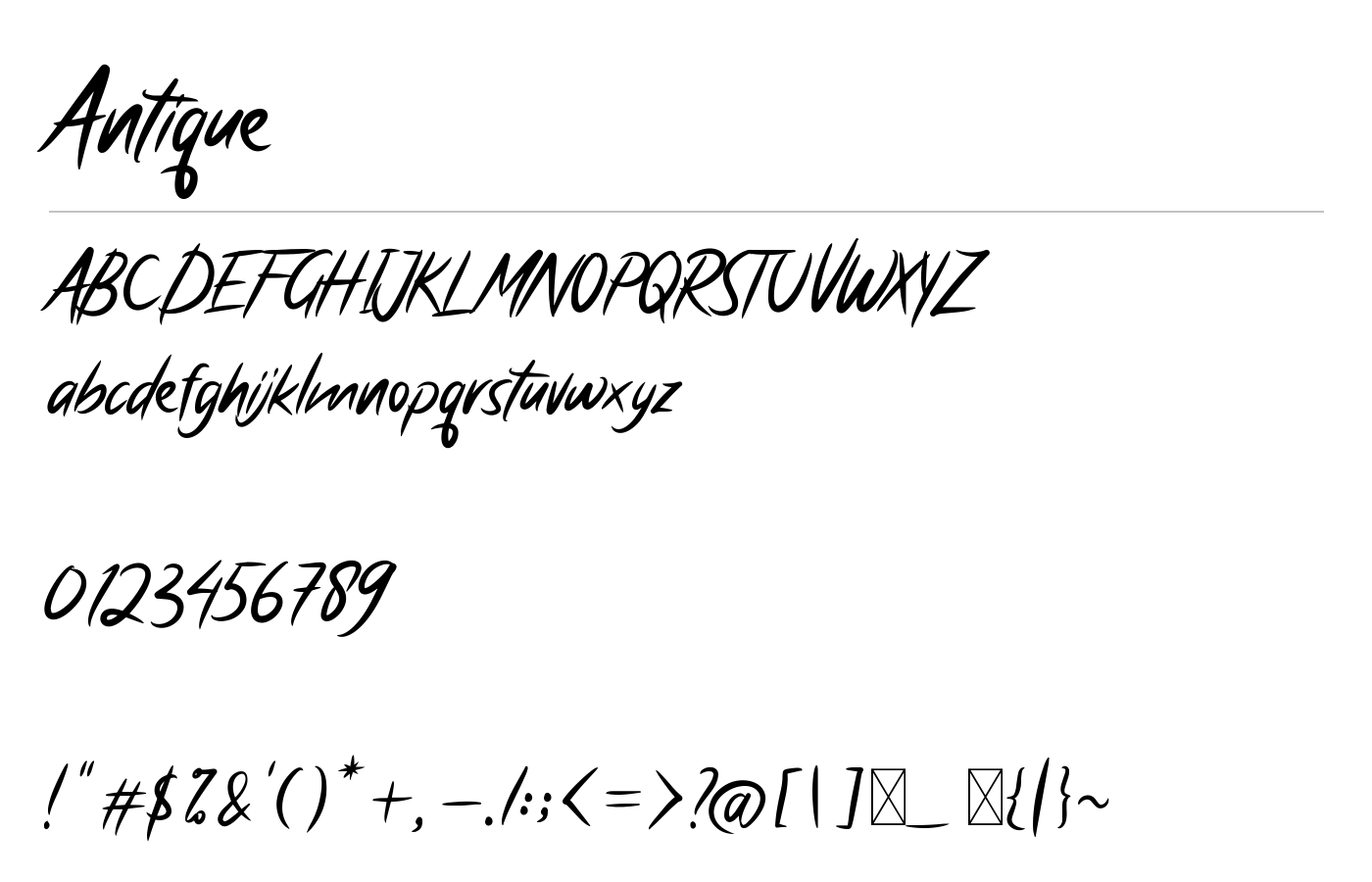
Antique Font is a lively and expressive script typeface with a hand-drawn, brush-like style that conveys energy and personality. Its slightly irregular strokes and dynamic slant create a casual yet stylish feel, making it perfect for creative branding, posters, and expressive headlines where a bold, artistic touch is desired. This font shines in projects that seek a modern, handwritten vibe with a unique and approachable character.
Antique Font
About Antique Font
| Font family | Antique Font |